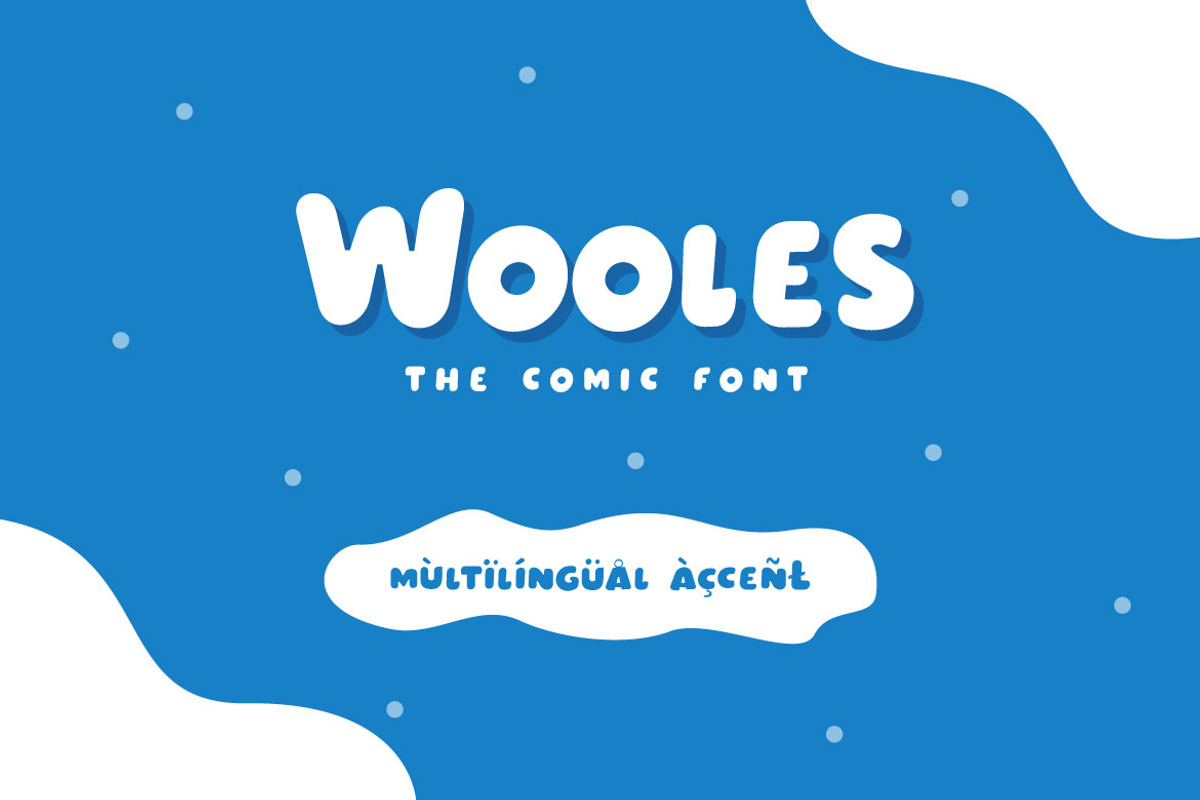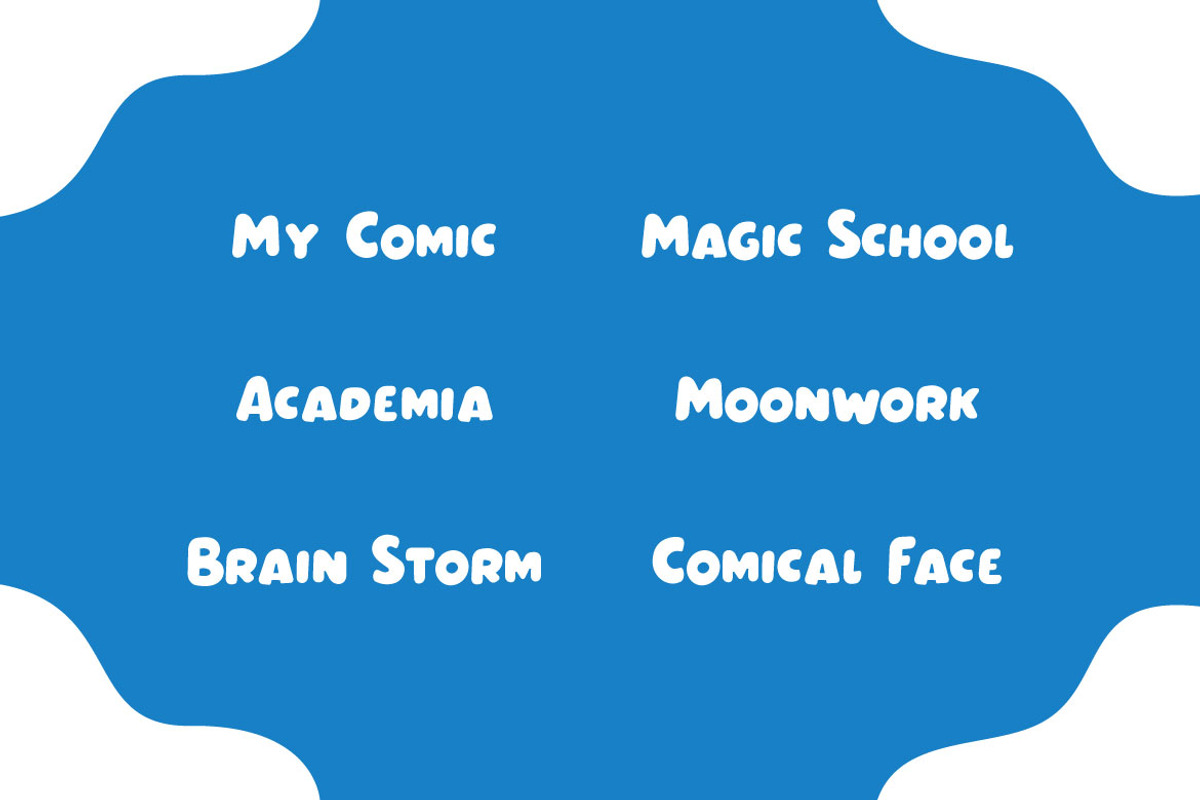
Wooles - Display Cartoon Font
Cute, and bring happiness, that is WOOLES Rounded, bold, and modern in one package, Wooles suit perfectly for children book, comic, kindergarten, toys, movie title, flyer, technology, poster, book cover, title, headline, logo, magazine, banner, or even large-scale artwork. WOOLES has regular versions and multilingual accents.